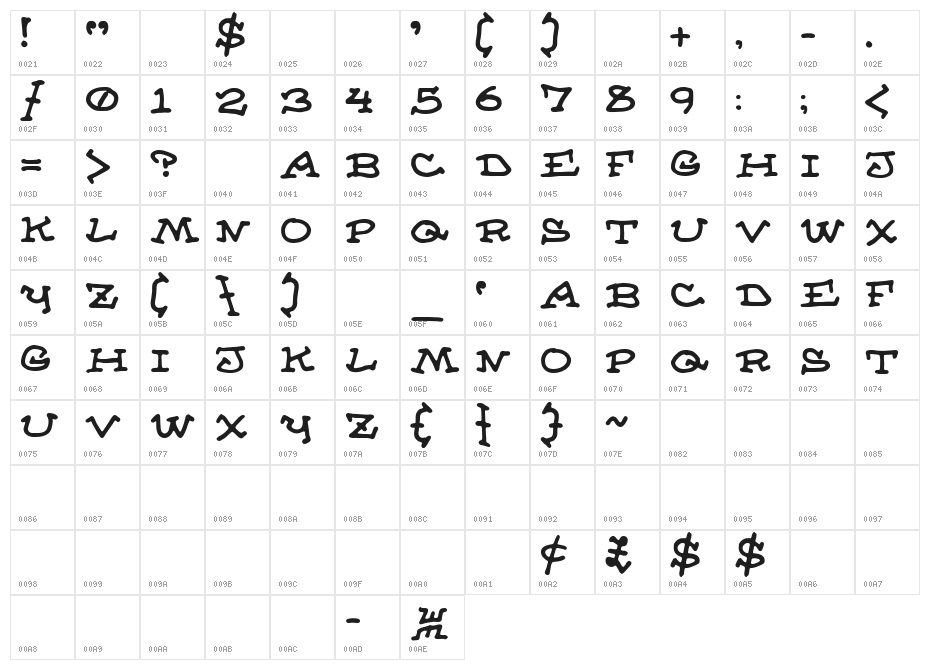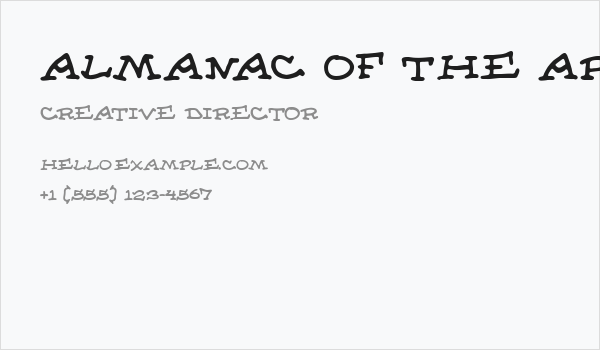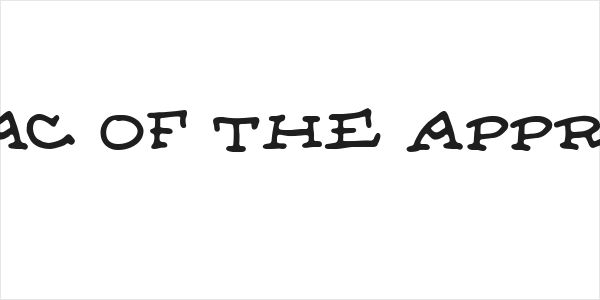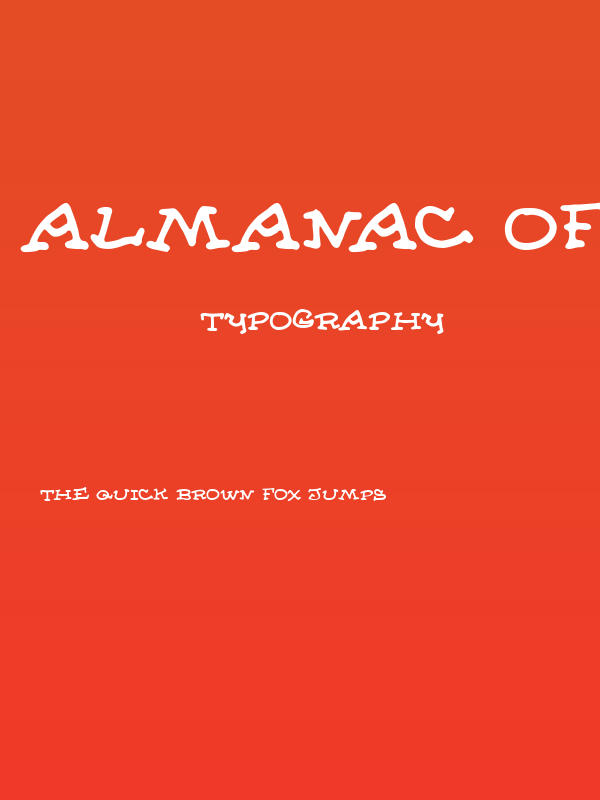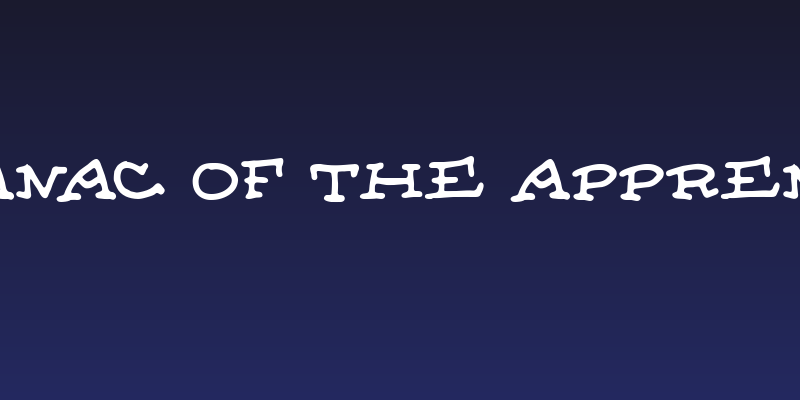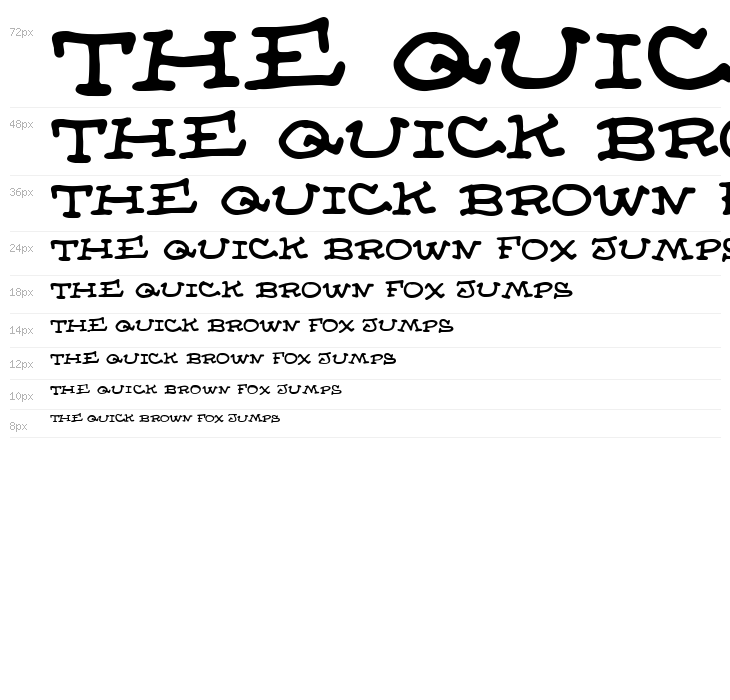
Almanac of the Apprentice Font
Almanac of the Apprentice Description
This font features a playful and whimsical design, characterized by its bold and slightly irregular strokes. The letters have a hand-drawn appearance, with a unique blend of curves and angles that give it a lively and dynamic feel. The uppercase and lowercase letters maintain a consistent style, with rounded edges and a slightly uneven baseline that adds to its charm. The numbers and special characters follow the same playful aesthetic, making it suitable for creative and informal projects. The overall look is reminiscent of a cartoon or comic style, perfect for capturing attention and conveying a sense of fun.
| Proposed Projects | Ideal for children's books, comic strips, playful branding, and creative posters. |